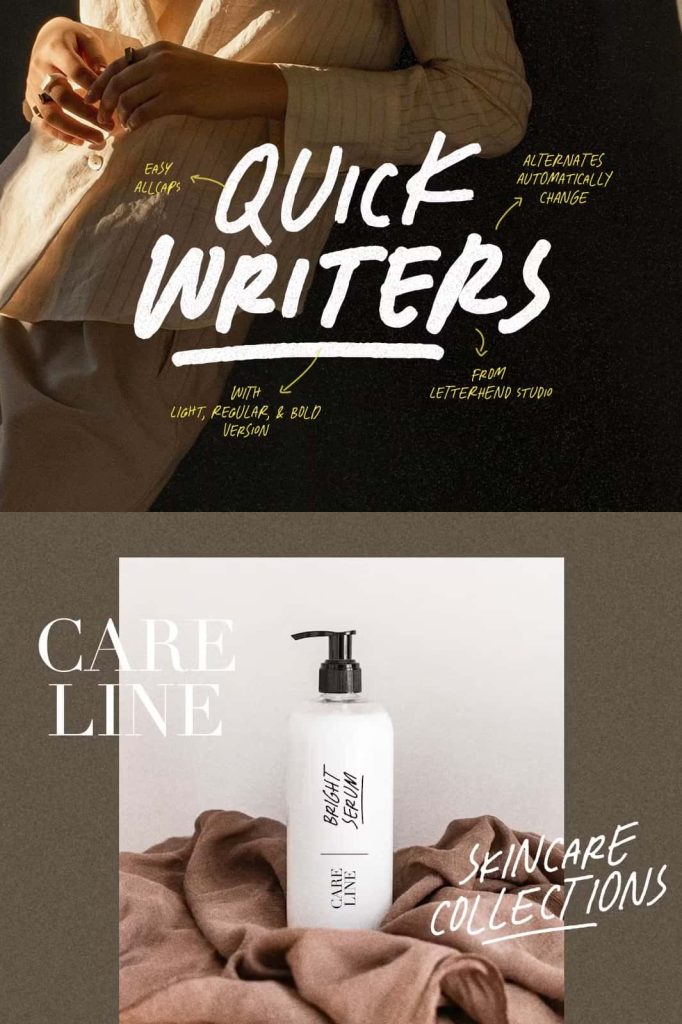
Quick Writers Font: An Organic Handwritten Typeface with Natural Flow
The Quick Writers Font brings the authentic charm of true handwriting into digital design. Created with an organic, fluid style, this handwritten typeface captures natural movement and the subtle imperfections that make handwriting feel personal and expressive. Rather than appearing mechanical or typed, Quick Writers mimics the flow of pen on paper, offering designers a warm and human touch that enhances any visual project. Its simplicity, fluidity, and handcrafted form make it a powerful tool for creating meaningful and engaging designs.
A Typeface Inspired by Real Handwriting
Quick Writers is intentionally crafted to look like real handwriting. Every curve, stroke, and connection between letters reflects the familiar movement of writing by hand. This design approach allows the typeface to feel intimate, natural, and relatable. Instead of stiff letter shapes or artificially perfect curves, the font embraces smooth transitions and subtle variations. These details work together to give your text an organic energy that enhances readability while preserving an authentic handwritten feel.
Natural Flow That Brings Words to Life
One of the defining strengths of Quick Writers is its natural flow. Each character connects gracefully, creating seamless word shapes that resemble handwritten notes, journal entries, or personal messages. This smooth flow adds emotional depth to your design and helps you communicate with sincerity and personality. Whether you are creating a warm greeting, an artistic headline, or a playful quote, the fluid nature of this font makes every message feel alive and full of character.
Perfect for Branding and Personal Identity
Brands that aim to appear approachable, creative, and human will find the Quick Writers Font especially valuable. Handmade elements have become essential in modern branding, and this typeface helps designers achieve that handcrafted authenticity. Use it for logos, taglines, brand signatures, packaging labels, or small decorative text elements. The font adds a personal touch that resonates with audiences, making products and businesses feel more genuine and relatable.
Ideal for Invitations, Cards, and Stationery
Quick Writers also enhances invitations and stationery with a heartfelt, personal mood. Its natural strokes make wedding invitations, greeting cards, thank-you notes, and event programs feel warm and thoughtfully crafted. Instead of appearing formal or rigid, the font introduces a friendly, expressive style that helps create memorable paper goods. When paired with elegant serif or minimalist sans-serif fonts, Quick Writers becomes a beautiful complement to balanced and modern layouts.
Enhance Social Media and Digital Content
In digital design, handwriting fonts play a major role in capturing attention and communicating emotion. Quick Writers works exceptionally well on social media platforms like Instagram, Pinterest, Facebook, and more. Use it to bring character to motivational quotes, announcement posts, lifestyle visuals, digital ads, and highlight covers. Its handwritten charm stands out against the often sterile feel of digital text, helping your content appeal to followers and potential customers.
Versatile for Packaging, Advertising, and Creative Projects
Beyond branding and digital design, Quick Writers is a versatile font suitable for product packaging, marketing materials, posters, book covers, menus, and handmade product labels. The natural handwriting style adds warmth and personality, enhancing the storytelling aspect of your design. Whether your project is artistic, modern, rustic, or playful, this font adapts to different moods while keeping its authentic handwritten essence.
The Quick Writers Font stands out as a beautifully organic handwritten typeface that captures the heart of real handwriting. Its natural flow, smooth connections, and expressive strokes make it a valuable addition to any designer’s toolkit. From branding and invitations to social media and packaging, this typeface brings authenticity, charm, and personality to every project. If you want to create designs that feel genuine, warm, and visually engaging, Quick Writers is the ideal choice.